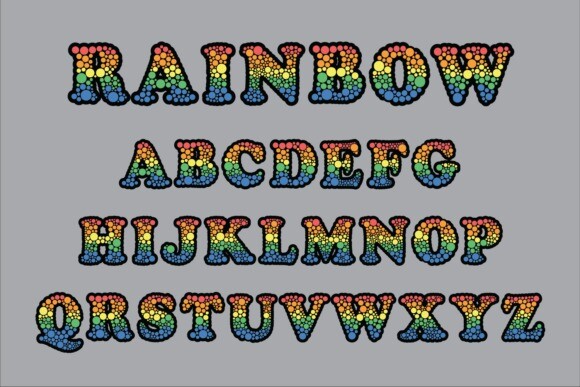
Drops Font
Drops font is a delightful burst of color and creativity. Each letter is crafted as a collection of tiny, colorful drops, adding a whimsical and artistic touch to your designs. Whether you’re working on invitations, branding, or any project that needs a splash of cheerfulness, Drops font will infuse your text with a playful and vibrant vibe.